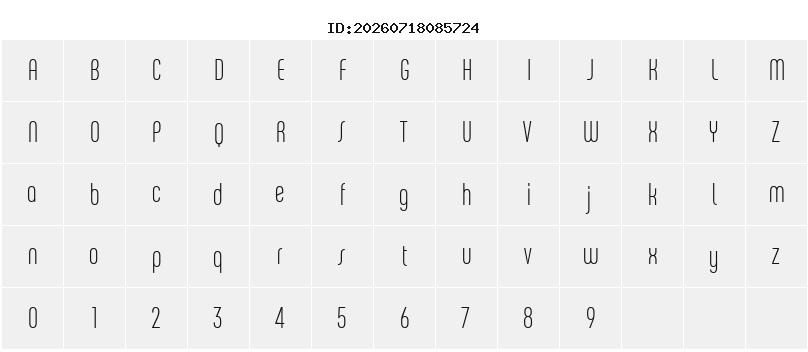
ChaletComprime-MilanSeventy Preview
• Font Name: ChaletComprime-MilanSeventy
• Full Font Name: ChaletComprime-MilanSeventy
• PostScript Name: ChaletComprime-MilanSeventy
• Designer: Paul van der Laan/House Industries
• Description: Part of the Chalet Comprime Collection
About ChaletComprime-MilanSeventy.ttf
ChaletComprime-MilanSeventy.ttf is a modern, elegant sans-serif font designed for ultimate readability and visual harmony. Perfect for branding, headlines, web design, and print materials.